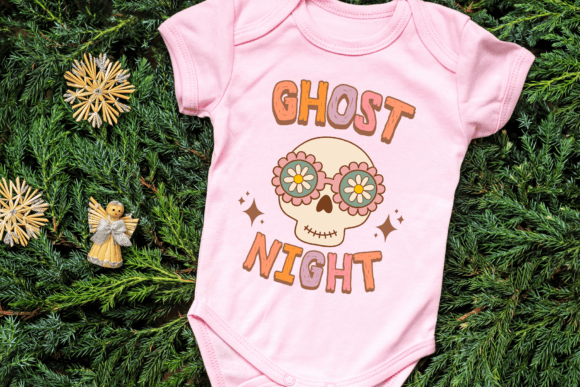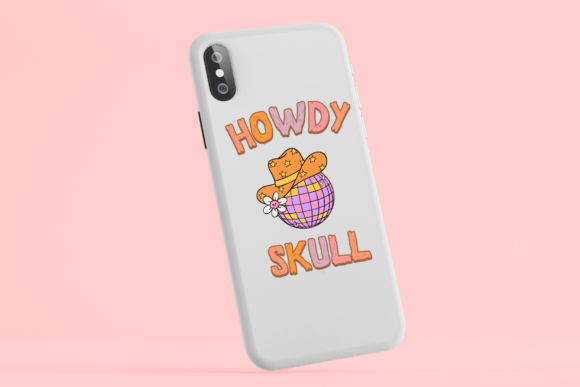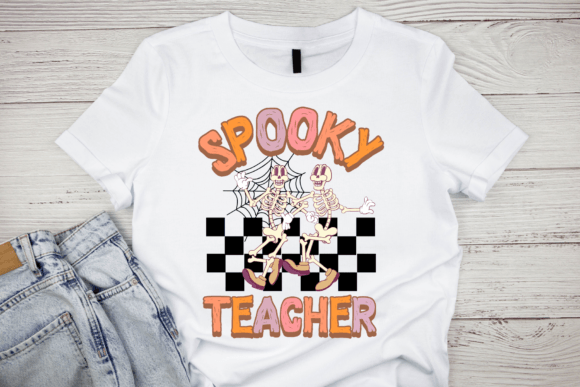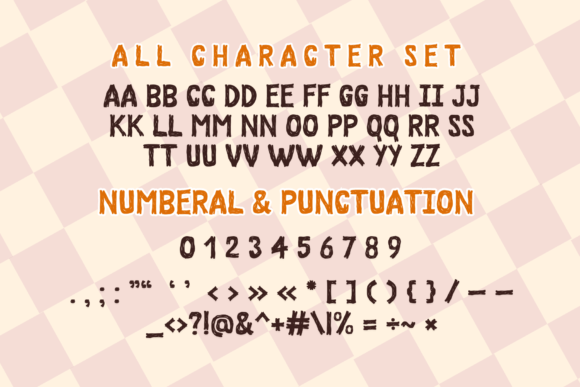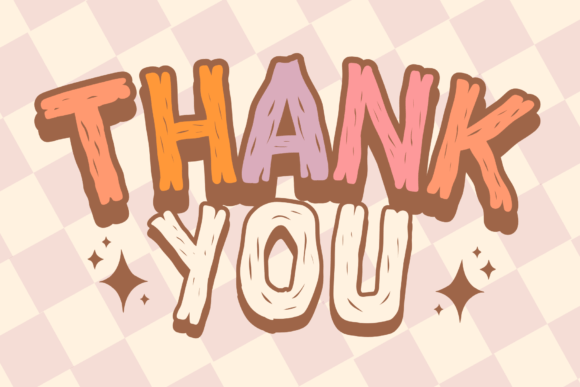
Introduction to Night Horror Font
As the clock strikes midnight and the moon casts an eerie glow, a spark of creativity ignites within us. The air is filled with possibilities, and the Night Horror Font becomes the perfect companion for your next design project. This hauntingly beautiful font is a treasure trove of creative expression, waiting to be unleashed on your next blog post, logo, or advertisement.
For designers, the Night Horror Font is a valuable asset, offering a unique blend of playfulness and authenticity. Its transparent background and high-quality design make it an ideal choice for any creative project. Whether you’re working on a Halloween-themed campaign or simply want to add a touch of darkness to your designs, this font is sure to impress.
Key Features of Night Horror Font
- Unique, hand-drawn design inspired by dark and eerie themes, perfect for creative projects that require a spooky atmosphere.
- High-quality font with precise lines and details, ideal for printing or digital use at high resolutions (up to 300 DPI).
- Designed to be highly legible, even at small font sizes, making it suitable for a variety of creative projects, from posters to novels.
Honest Review: Night Horror Font
As a designer, I’m always on the lookout for unique and high-quality design resources to enhance my creative projects. Recently, I had the chance to work with the Night Horror Font, and I’m excited to share my honest review.
- ✨ High-quality font with a creepy and eerie atmosphere, perfect for horror-themed projects.
- ⚠️ Limited character set, which may be a concern for designers who need a wide range of characters.
- ⚠️ Not suitable for everyday use, as it’s specifically designed for horror-themed projects.
Overall, I’m impressed with the Night Horror Font. It’s a great addition to any designer’s toolkit, especially for those working on horror-themed projects. With its high-quality design and transparent background, it’s easy to see why it’s a popular choice among designers. While it may have some limitations, I believe it’s a valuable resource that can help take your creative projects to the next level.
Designing with Night Horror Font
Tips for Getting the Most Out of Night Horror Font
To get the most out of the Night Horror Font, consider combining it with other design elements such as eerie images and dark colors. Experiment with different font sizes and styles to create a unique and haunting effect.
The Night Horror Font is commonly used in horror-themed designs, such as movie posters, horror game graphics, and spooky social media posts. It’s also a great resource for designers who want to create a dark and eerie atmosphere in their designs.